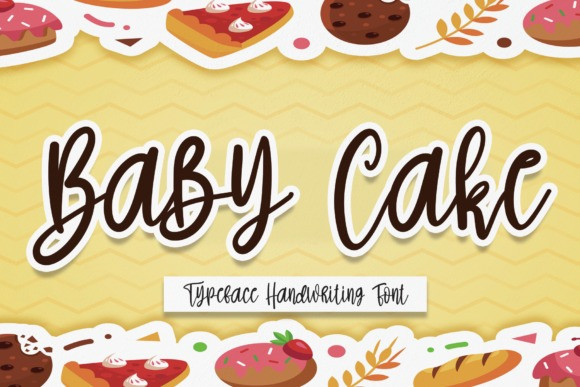
Baby Cake Font
Baby Cake Font is an asymmetrical and distinct handwritten font. It looks attractive on a variety of designs requiring a personalized style, such as wedding invitations, thank you cards, weddings, greeting cards, logos and so on.